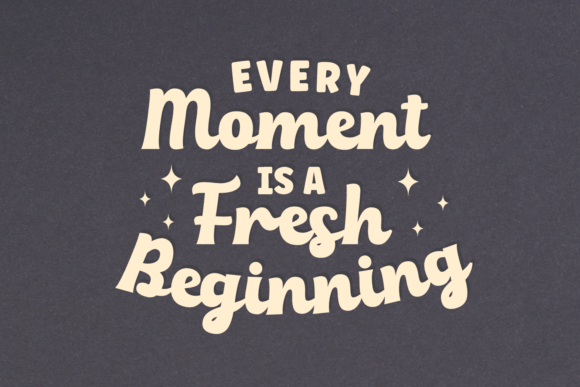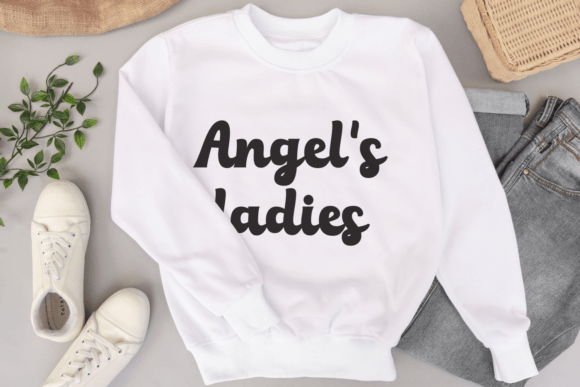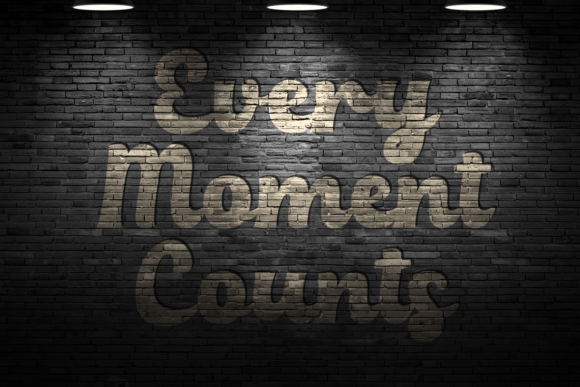
Introduction to Kleyra Font
Kleyra is a bold and beautiful script font.
Thick and cursive, this lovely typeface is the perfect choice whenever you need to add a strong personal touch to your typography Use it for invitations, cards, apparel, posters, advertisements, gift tags, product packaging, and more.
Key Features of Kleyra Font
Why Choose Kleyra Font?
Kleyra Font offers exceptional quality and versatility, making it a valuable addition to your design toolkit. Whether you’re creating for personal projects or commercial use, Kleyra Font delivers professional results.